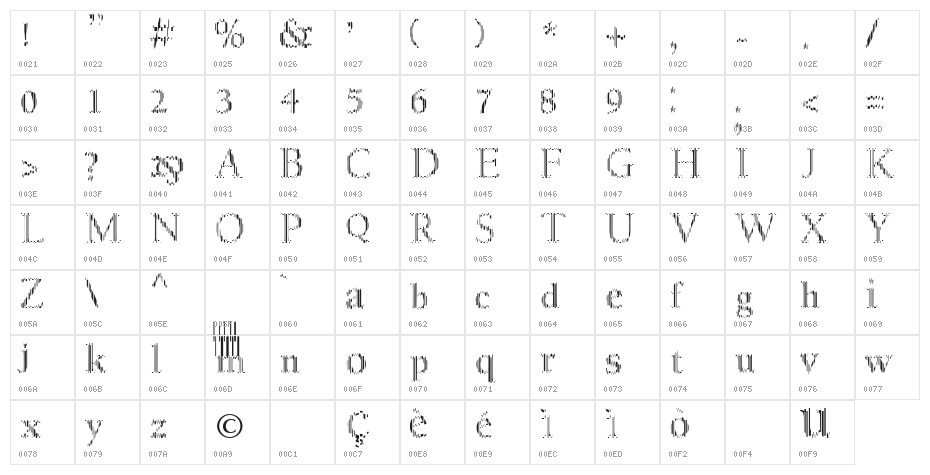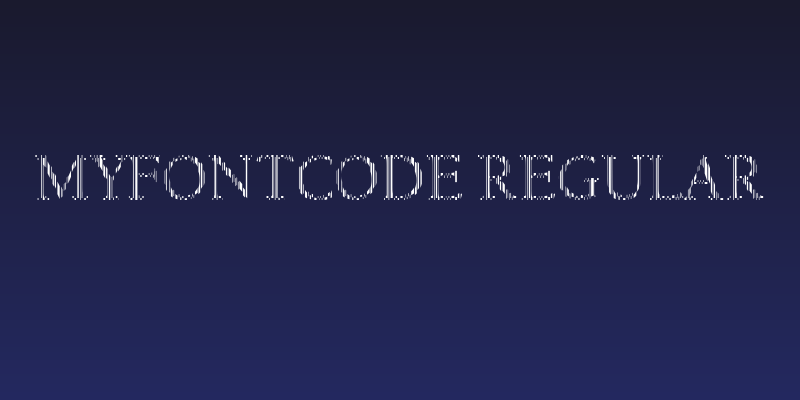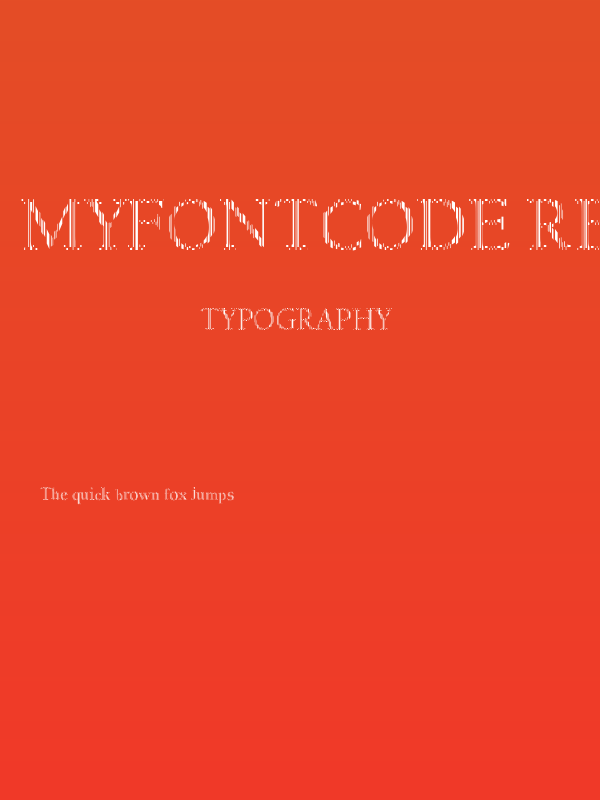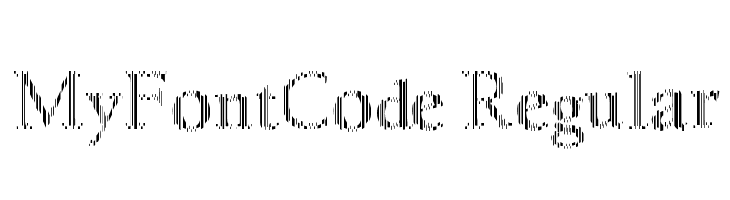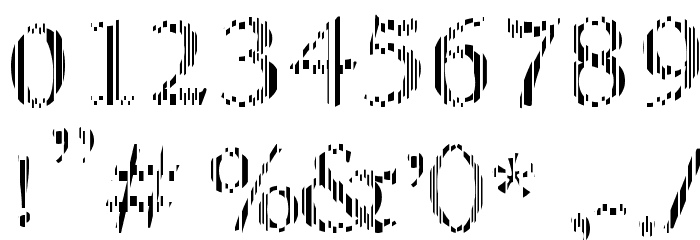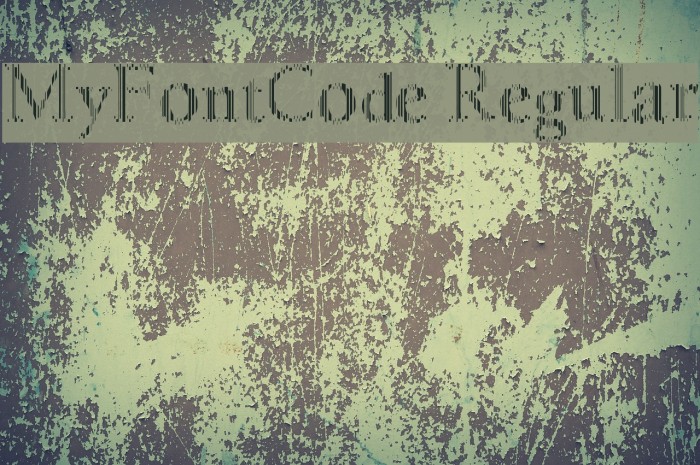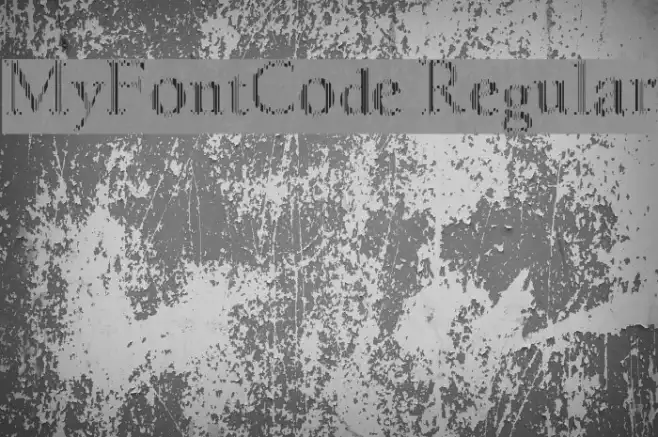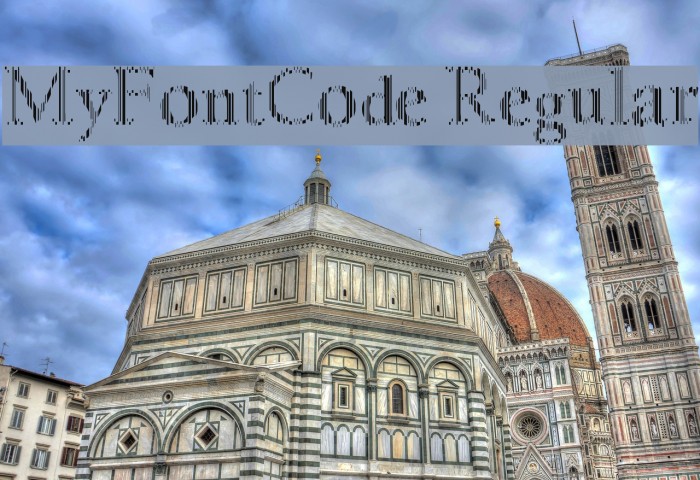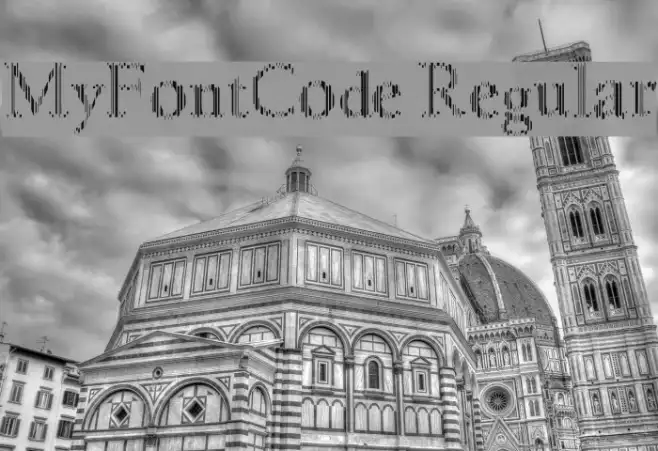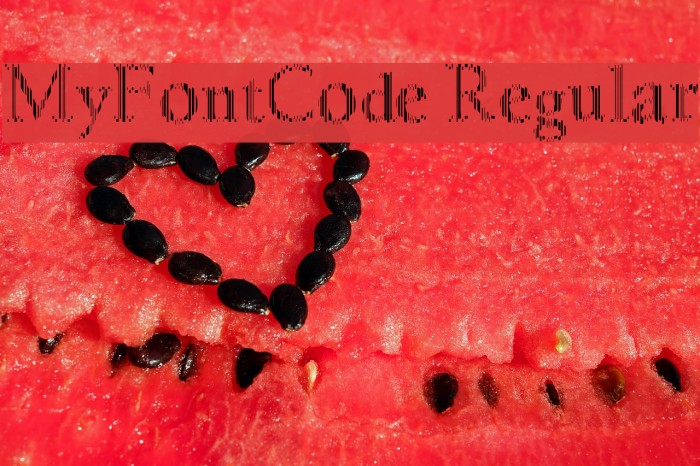
MyFontCode Regular Font
MyFontCode Regular Description
This font features a distinctive, decorative style characterized by its unique pattern of vertical lines running through each character. The uppercase and lowercase letters maintain a consistent design, with the vertical lines creating a textured appearance that adds depth and visual interest. The numerals and special characters follow the same stylistic approach, ensuring uniformity across the entire typeface. The font's overall aesthetic is bold and eye-catching, making it suitable for projects that require a strong visual impact.
| Proposed Projects | Ideal for branding, poster design, and any creative project that demands a striking, artistic typeface. |